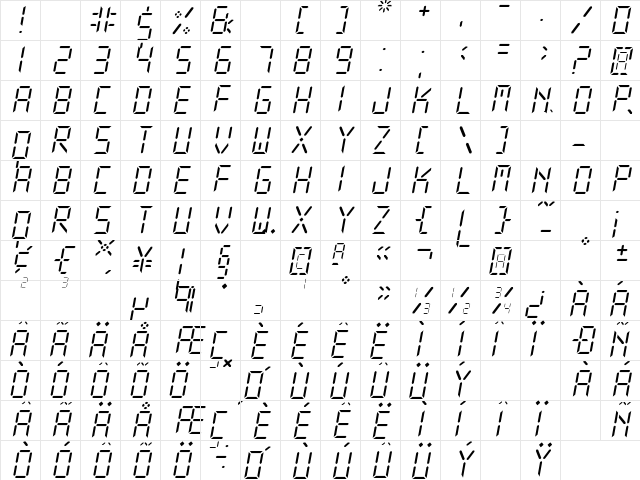
New X Digital tfb Light Regular
Design Context for New X Digital tfb Light Typeface
New X Digital tfb Light channels digital-age aesthetics through its sharp, structured letterforms — ideal for brands that want to signal innovation. The delicate stroke weight brings airiness and refinement to layouts.
Pro Tip: Try New X Digital tfb Light with generous letter-spacing in UI labels and navigation — the geometric forms benefit from room to breathe.